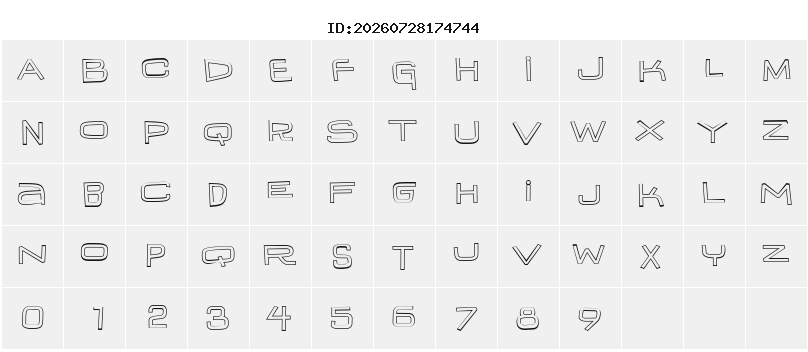
IguanaLover BTN Wide Out Preview
• Font Name: IguanaLover BTN Wide Out
• Full Font Name: IguanaLover BTN Wide Out
About IguanaLover BTN Wide Out.ttf
IguanaLover BTN Wide Out.ttf is a modern, elegant sans-serif font designed for ultimate readability and visual harmony. Perfect for branding, headlines, web design, and print materials.